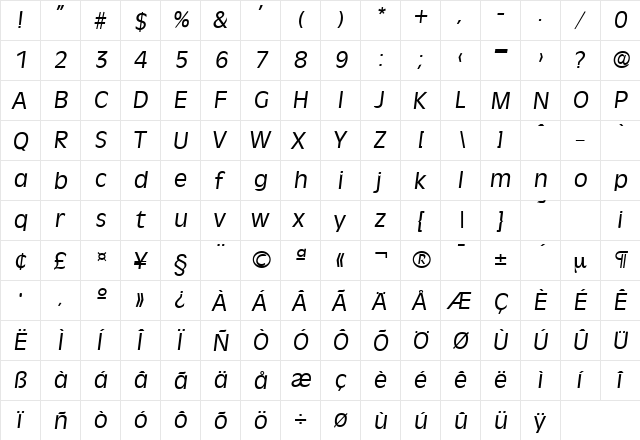
Ravenna-Serial RegularItalic Font Preview
Ravenna-Serial RegularItalic
Design Context for Ravenna-Serial Typeface
Ravenna-Serial is a composed and adaptable typeface that performs quietly and consistently across a wide range of design contexts. The dynamic lean of this cut emphasises speed and emphasis in any layout.